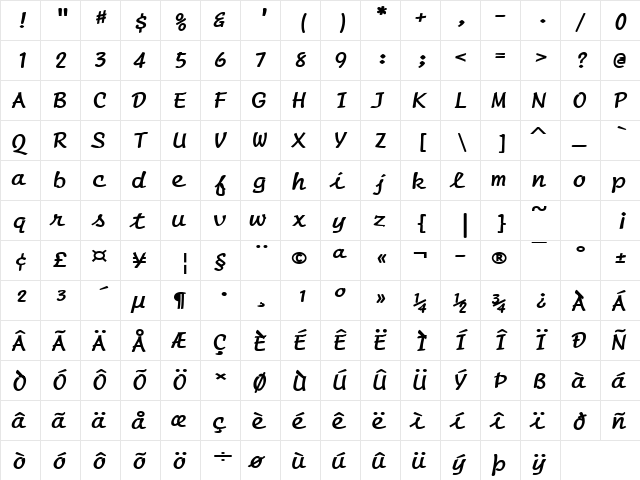
Manuscript Wide Bold
Design Context for Manuscript Wide Typeface
Manuscript Wide brings a calligraphic fluidity to the page — its connecting strokes and expressive curves give it an unmistakably human quality. Its bold stroke weight gives it real presence on the page.
Font Pairing: Combine Manuscript Wide with a simple geometric sans for maximum contrast — the tension between flowing curves and clean structure is a classic typographic pairing.
Pro Tip: Use Manuscript Wide for short runs of text — names, titles, or taglines. Extended body copy in script faces tires the eye quickly.